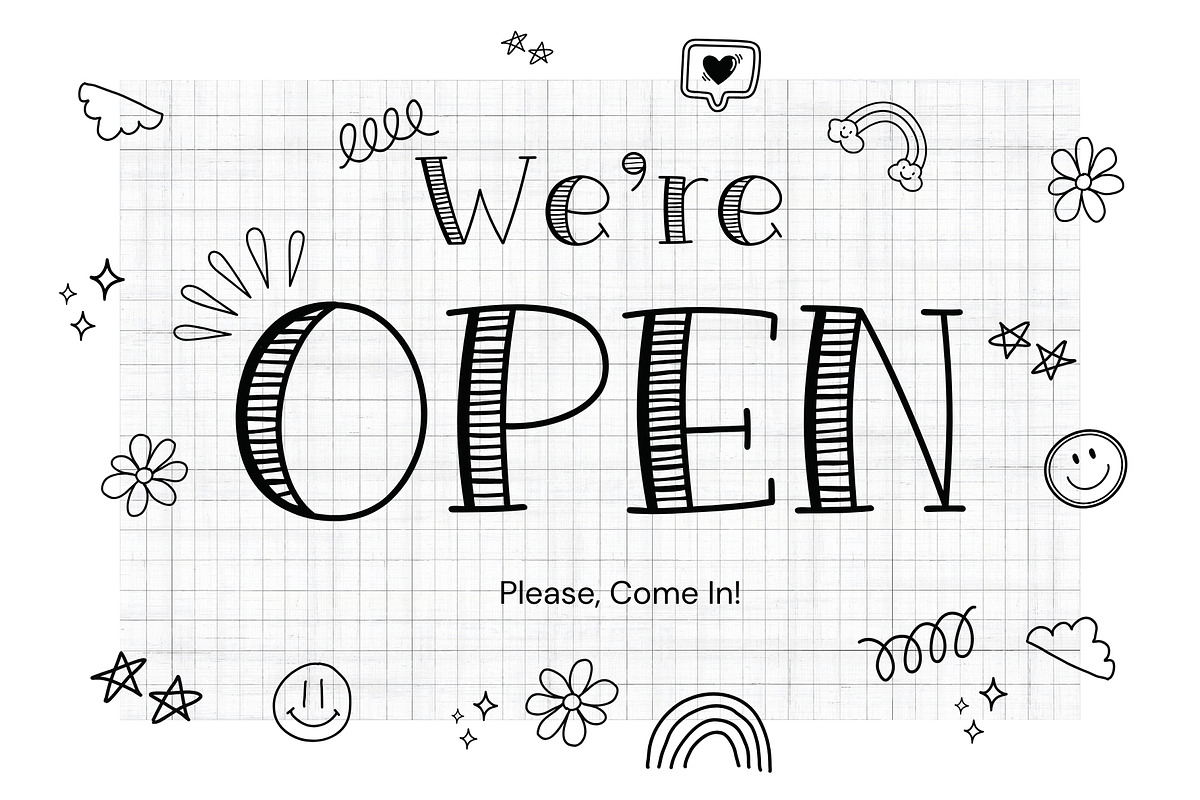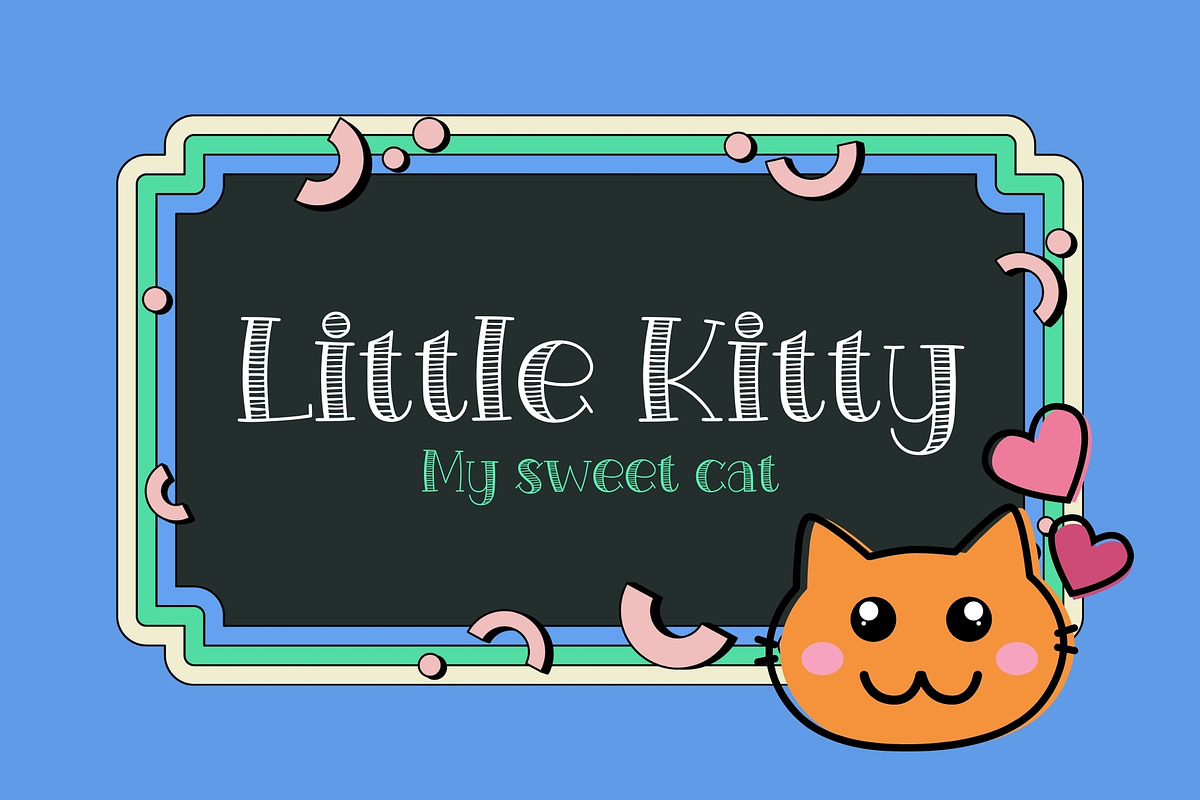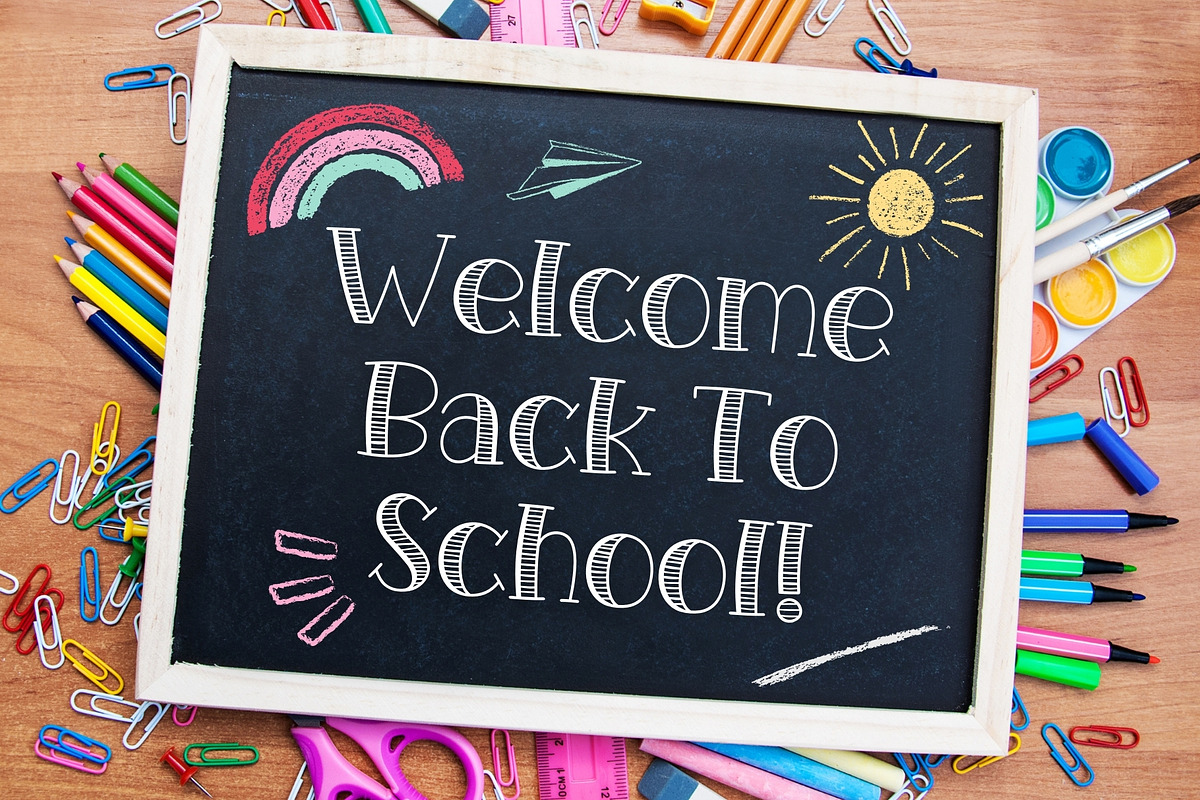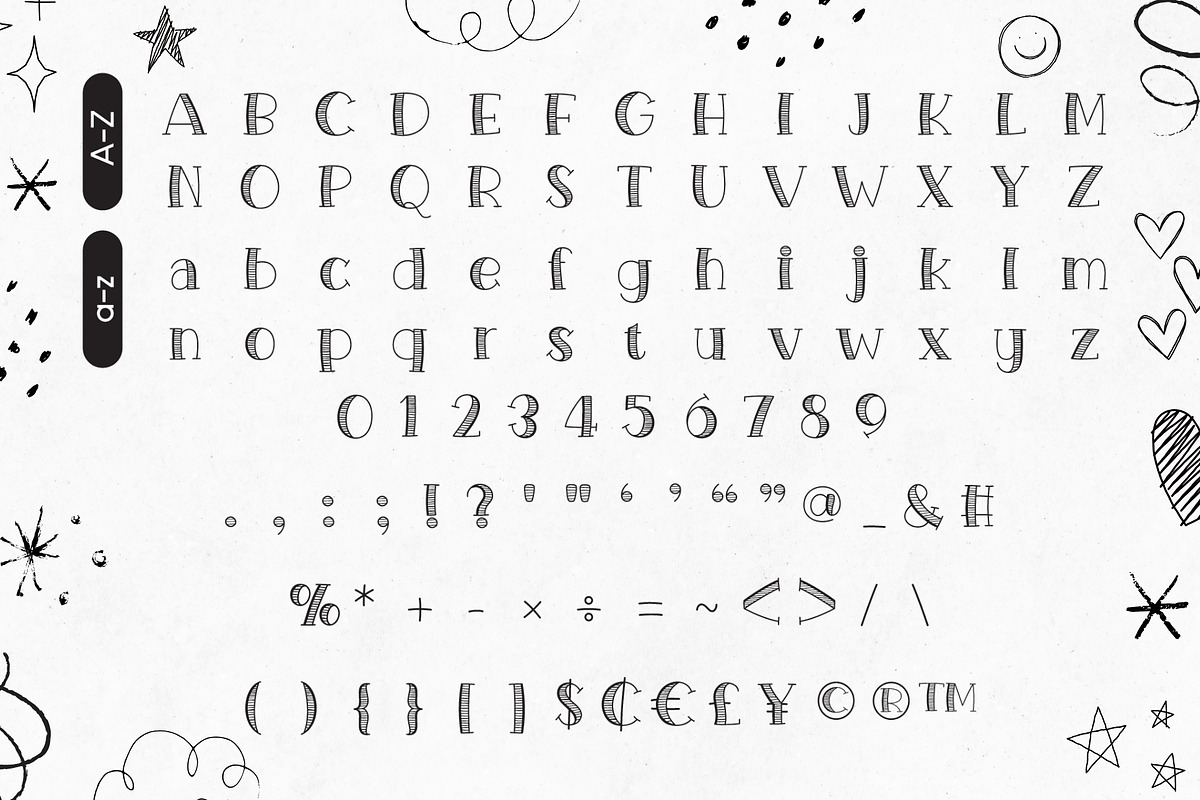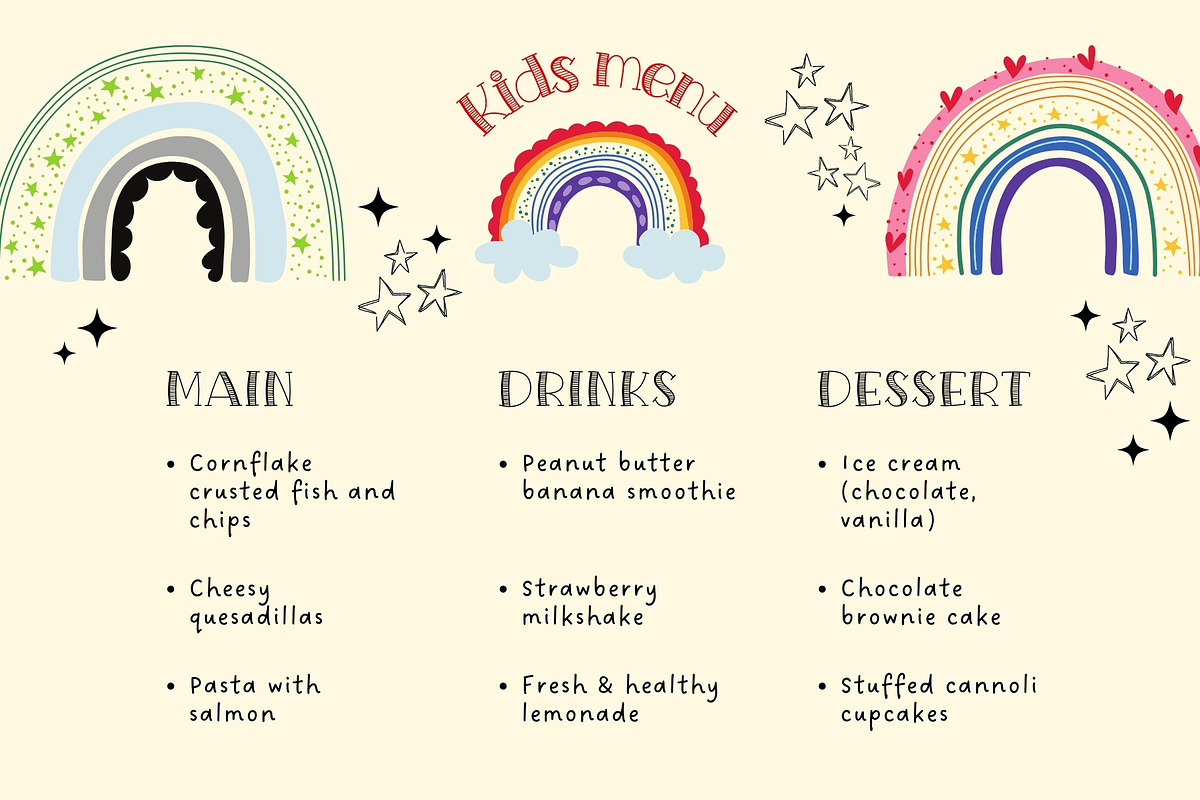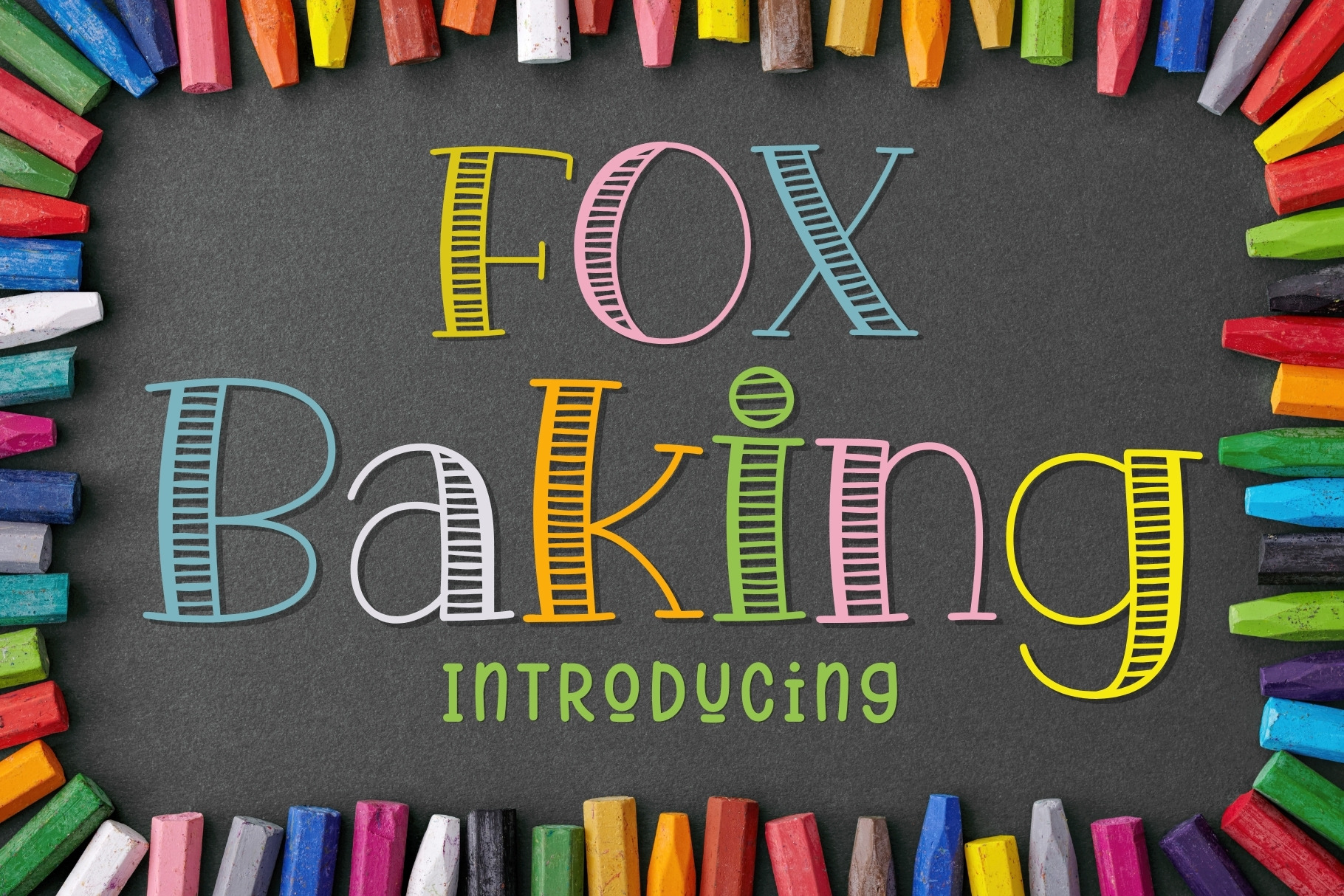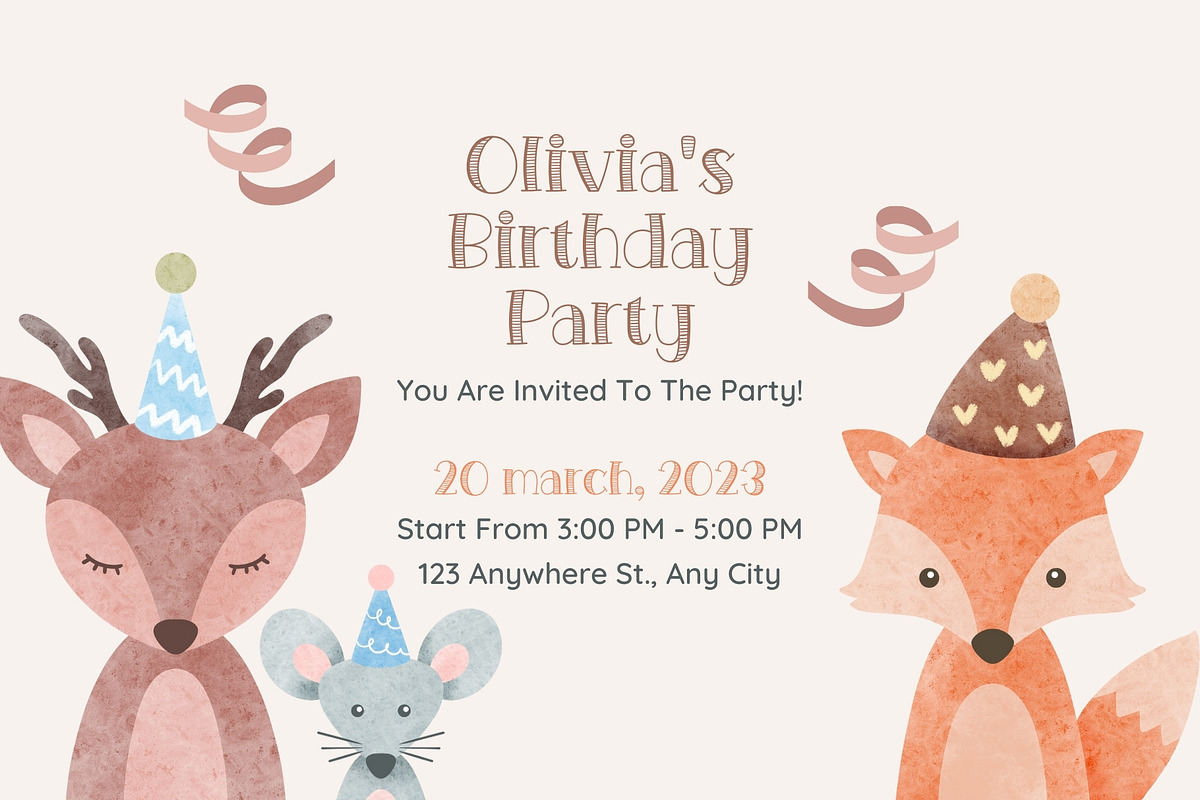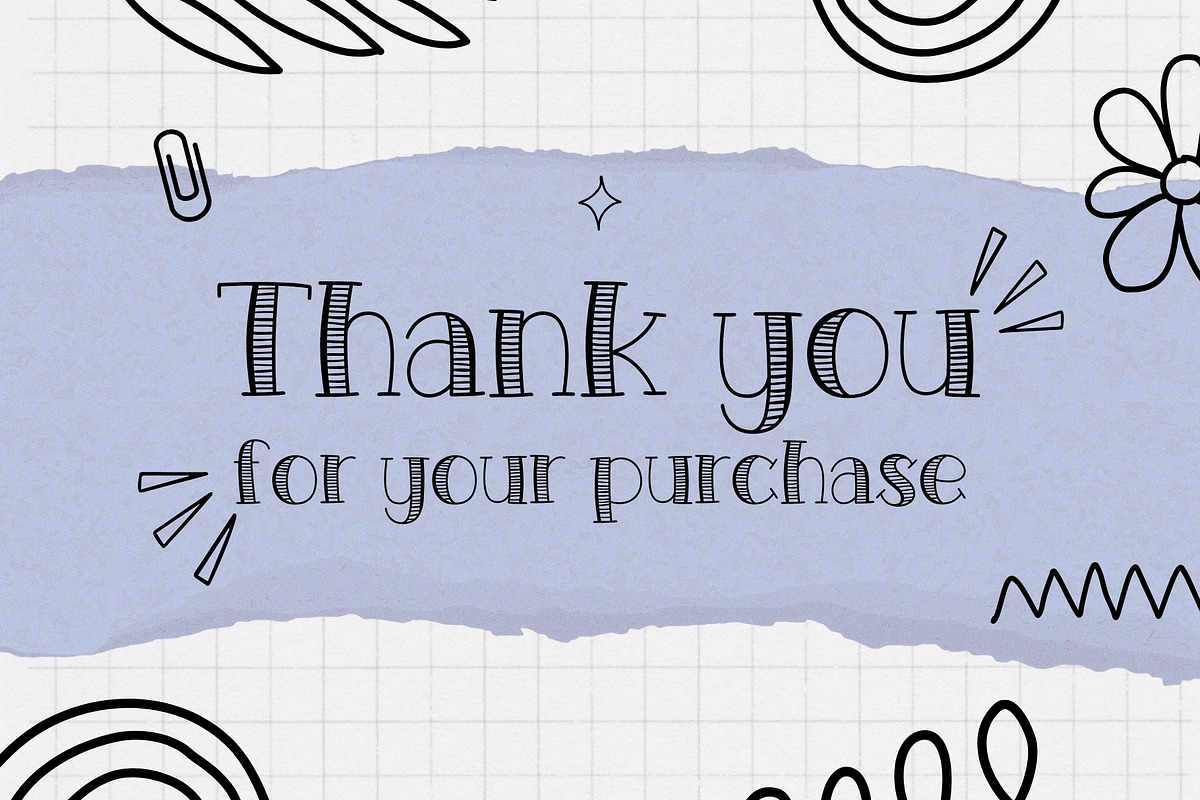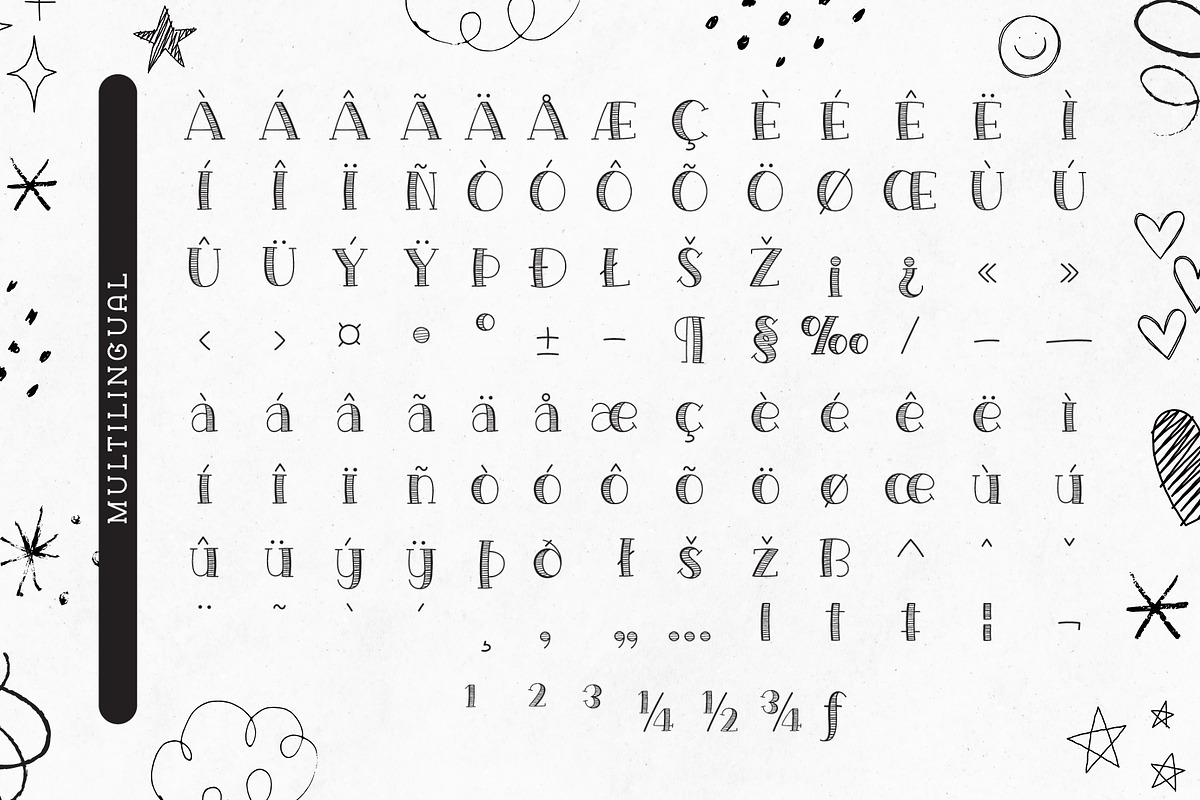
Fox Baking Font
Fox Baking is a cute and fun Slab serif font suited for kids, playgrounds, or school themes. Whether you’re using it for crafting, playful restaurant menus, digital designing, presentations, or greeting card making, it’s perfect!